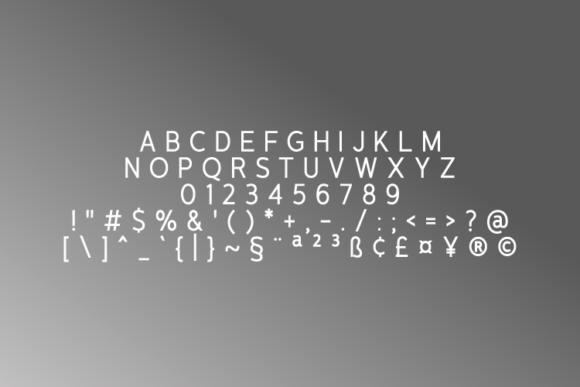
Introduction to Lotoush Semi-Bold Font
Have you ever stared at a blank canvas, unsure of where to begin on your latest creative project? The blank page can be daunting, but the right font can make all the difference. For designers, finding the perfect font can be a game-changer. It’s what takes a design from bland to grand, from boring to breathtaking.
That’s where the Lotoush Semi-Bold Font comes in – a high-quality sans serif font that’s sure to elevate any design. With its perfectly balanced mix of smooth and sharp lines, this font is the ultimate design resource for creatives. Whether you’re working on a free download or a high-stakes project, Lotoush Semi-Bold Font is the perfect choice to give your design a professional touch.
Key Features of Lotoush Semi-Bold Font
- High-quality design resource ideal for creative projects, offering a unique and stylish look.
- Features a semi-bold style, providing a balance between bold and regular font styles.
- Transparent background, allowing for easy customization and integration with other design elements.
- Designed with high resolution, ensuring crisp and clear text display even at larger font sizes.
- Perfect for use in a variety of creative projects, including digital art, graphic design, and typography-based designs.
Honest Review: Lotoush Semi-Bold Font
As a designer, I’m always on the lookout for high-quality design resources that can elevate my creative projects. Recently, I stumbled upon the Lotoush Semi-Bold Font, and I must say, it’s a gem.
- ✨ The font is incredibly versatile and can be used for a wide range of design projects, from logos to headings.
- ✨ The Lotoush Semi-Bold Font has a unique, modern feel that sets it apart from other fonts in its category.
- ✨ The font is available with a transparent background, making it easy to customize and use in various design scenarios.
- ⚠️ The font may not be suitable for projects that require a very formal or traditional look.
- ⚠️ Some users may find the font to be too bold or overpowering.
Overall, I’m impressed with the Lotoush Semi-Bold Font. It’s a great addition to any designer’s toolkit, and I’d highly recommend it for any creative project that requires a modern, high-quality font.
The Lotoush Semi-Bold Font is suitable for a variety of creative projects, including logos, brochures, business cards, and social media graphics. Its high-quality design makes it an ideal choice for designers looking for a unique and professional font.